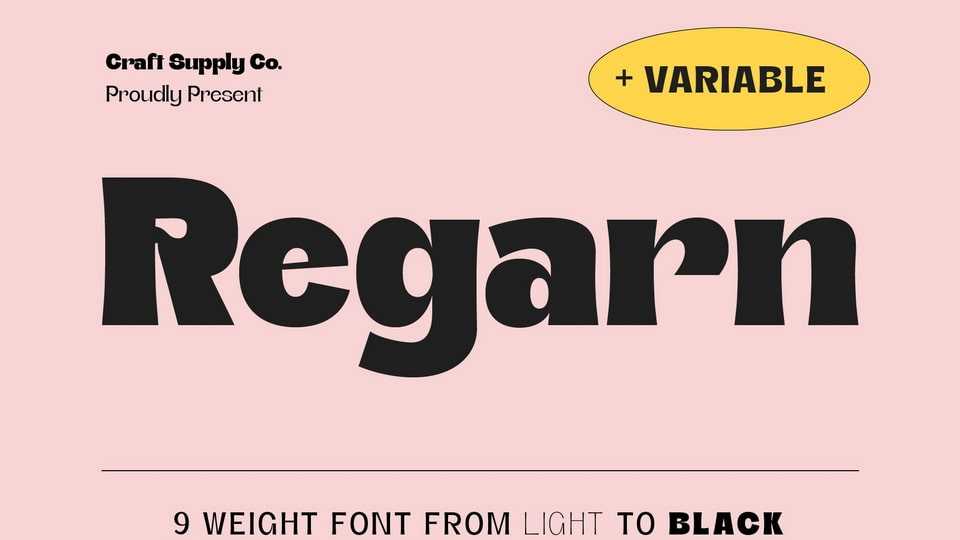
Download Regarn font, versatile, modern and stylish display typeface, perfect for any type of project. You can use from webpages to print projects, Regarn will be sure to meet your needs.
Designer: Craft Supply Co